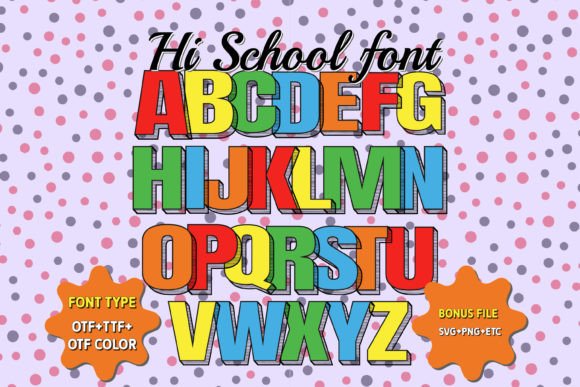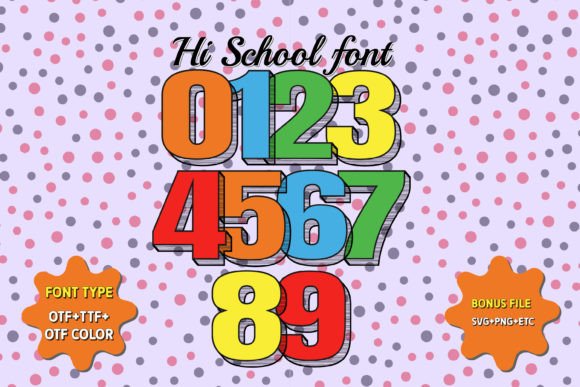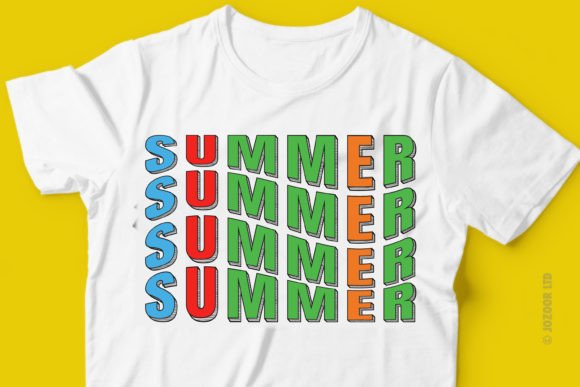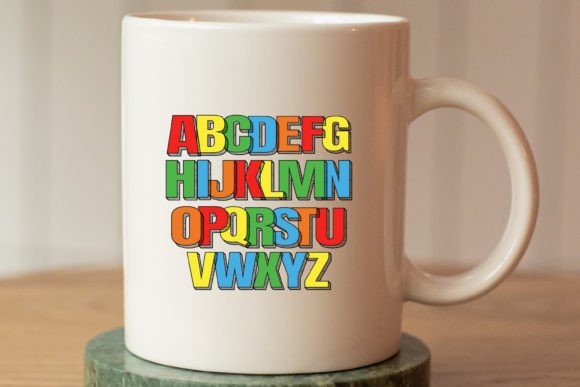
Hi School Font
About the Hi School Font
Let us introduce you to Hi School Font, where timeless design meets modern craftsmanship. Introducing a vibrant splash to your creative projects, our color font embodies joy and whimsy that is bound to elevate your design endeavors. An absolute fit for branding initiatives, packaging designs, riveting logotypes, and gripping headlines, it also adds a sprinkle of charm to wedding invitations and similar creatives. Embrace and experience the transformative power of this uplifting font in your designs.